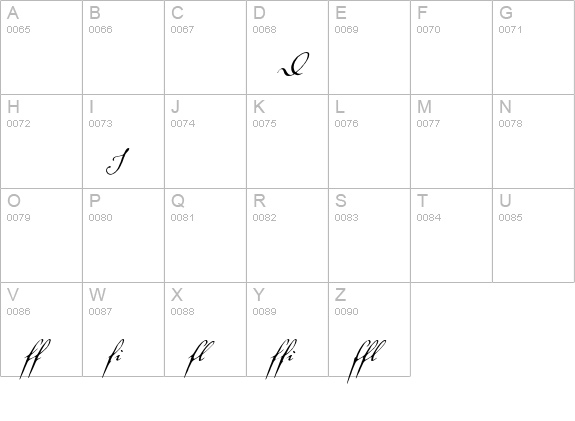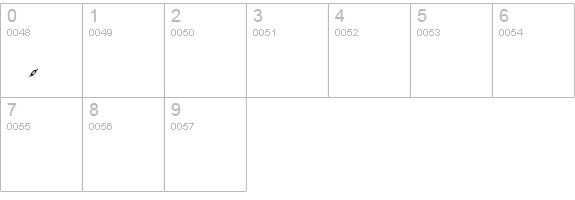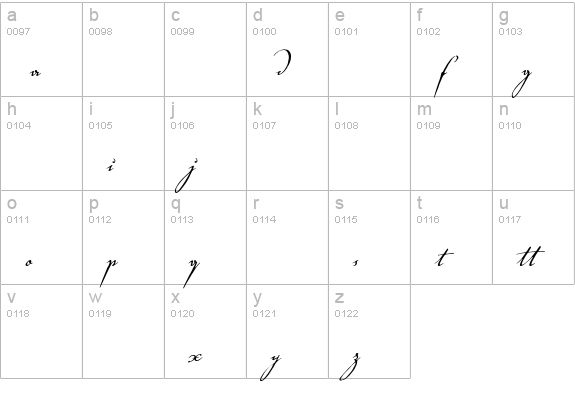
Voluta Script Alternates Font Details
Voluta Script Alternates font is a stunning and versatile typeface that is sure to catch the eye and add a touch of elegance to any project. With its beautifully crafted letterforms and flowing strokes, this font exudes a sense of sophistication and grace. What sets Voluta Script Alternates font apart is its wide range of alternate characters, allowing for endless creativity and customization. Whether you're designing a logo, creating invitations, or crafting a headline, you'll have a plethora of options to choose from, ensuring your design stands out from the crowd. Not only is Voluta Script Alternates font visually appealing, but it also offers great functionality. Its legibility makes it perfect for both display purposes and longer blocks of text. The carefully designed letter spacing and kerning ensure a smooth reading experience. And the best part? Voluta Script Alternates font is free! That's right, this incredible font is freely available to download at FontsMarket.com. So, whether you're a professional designer or a hobbyist looking to add a touch of elegance to your creations, you can now access this amazing font without breaking the bank. Don't miss out on the opportunity to elevate your designs with Voluta Script Alternates font. Download it today and let your creativity flow.